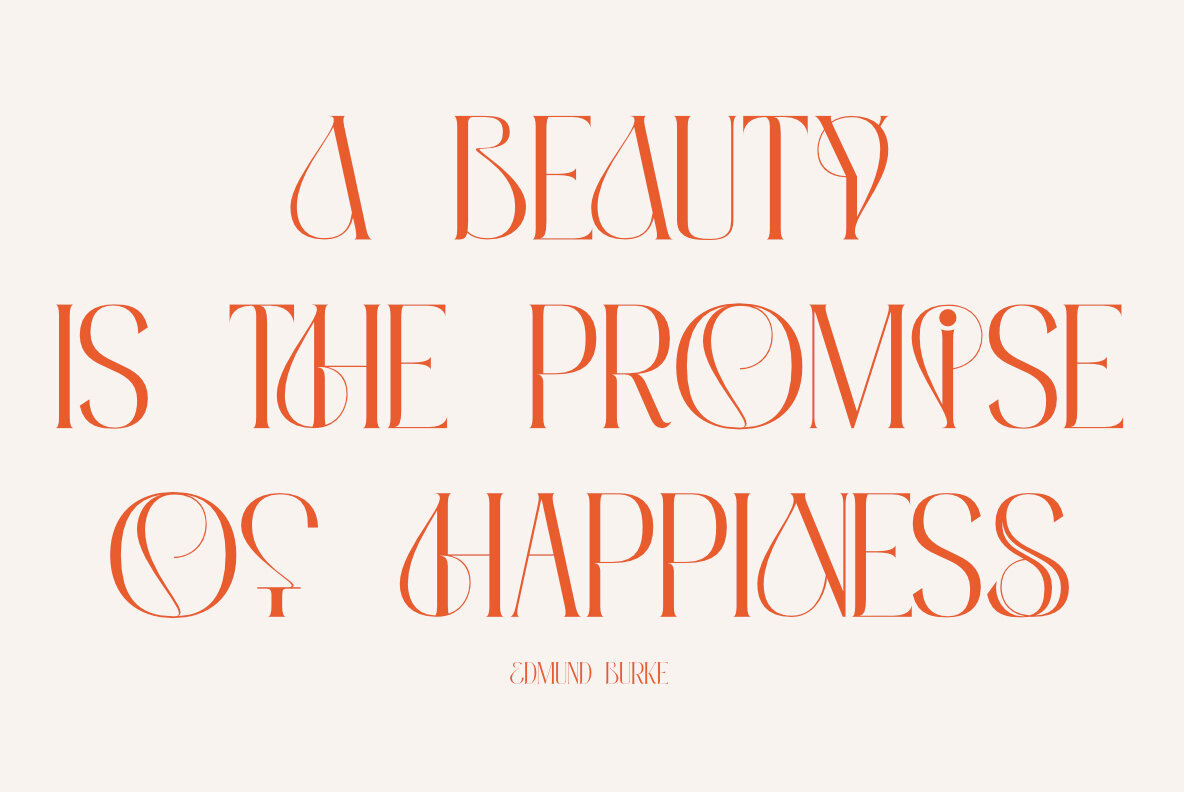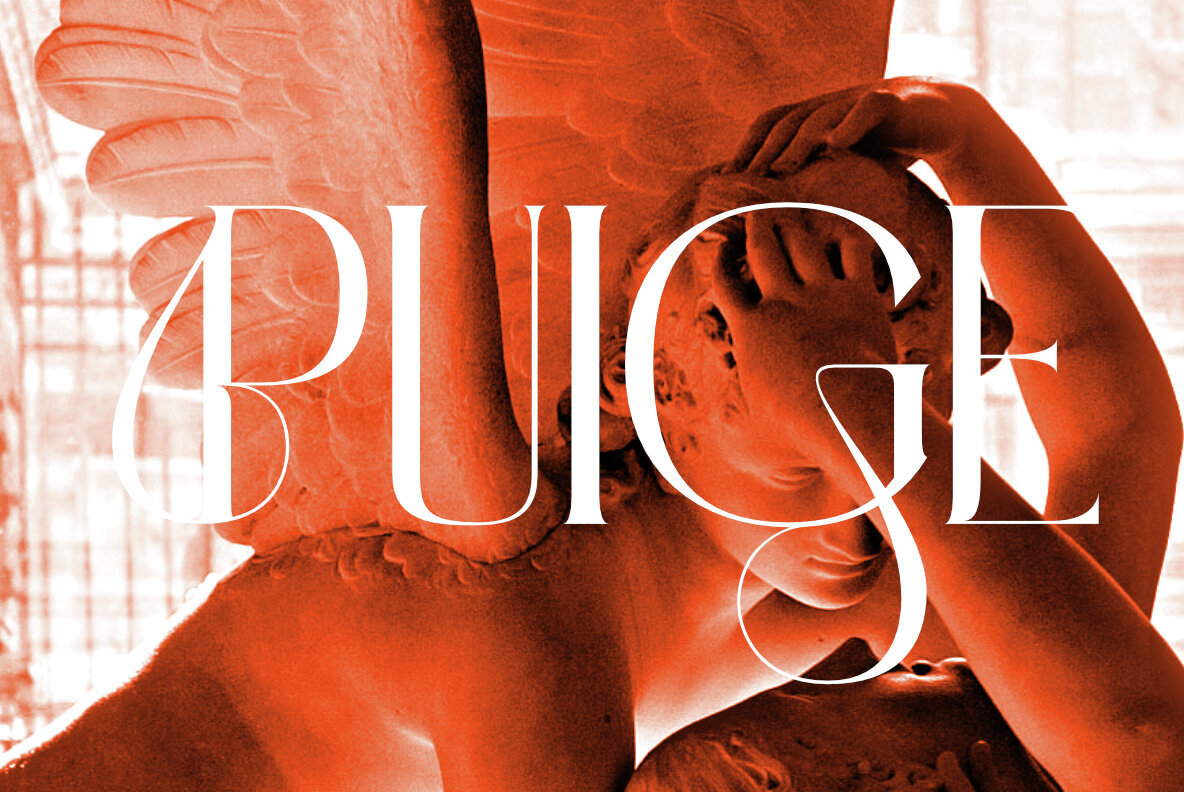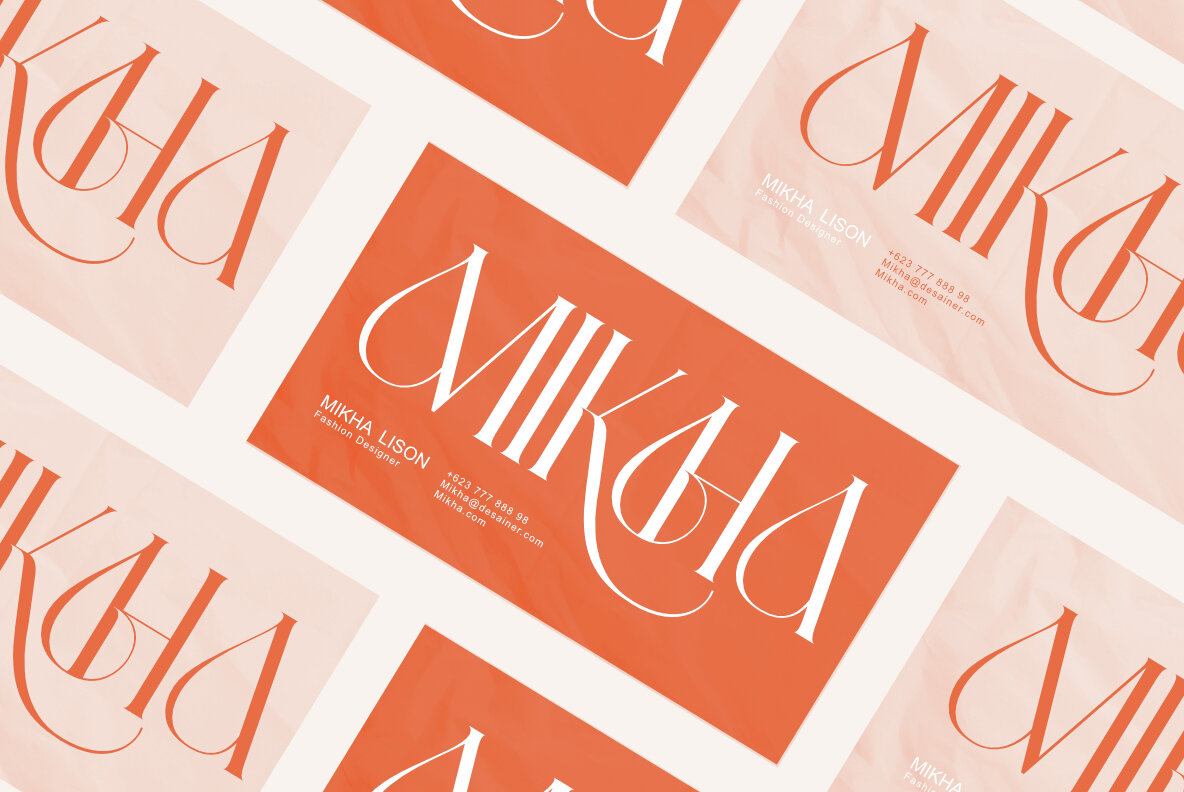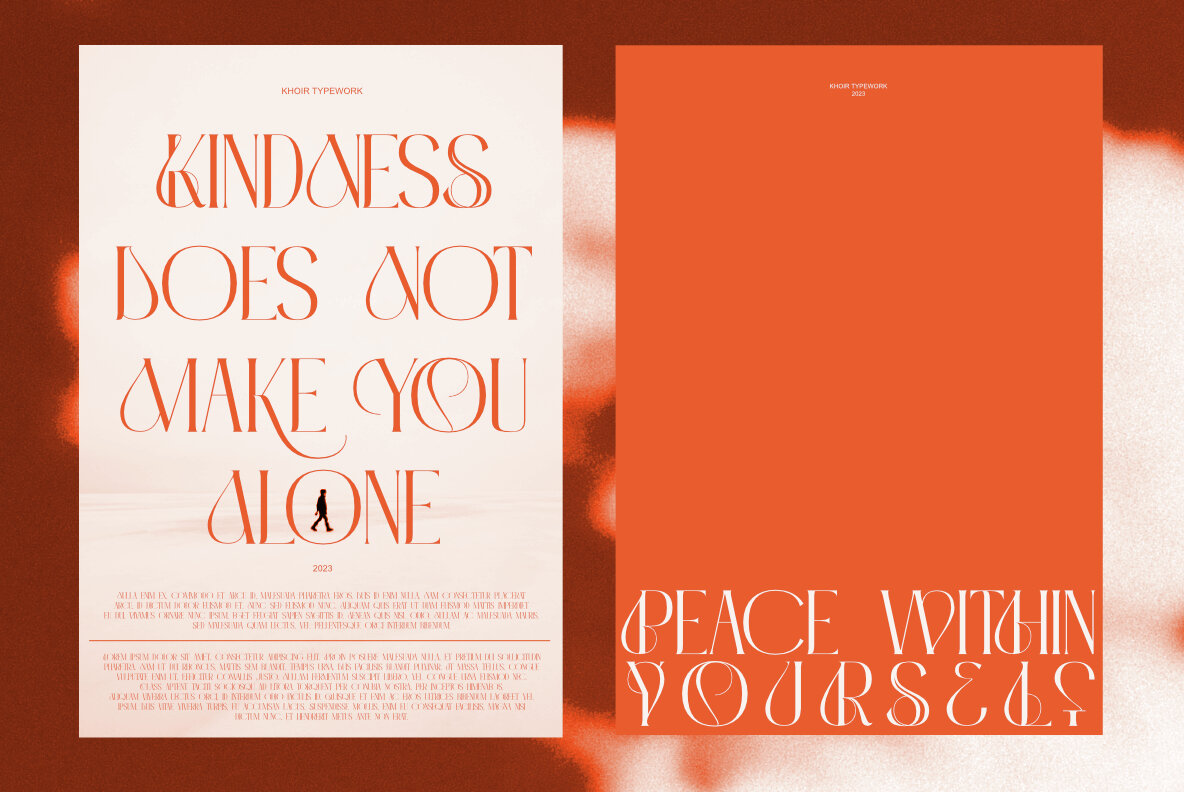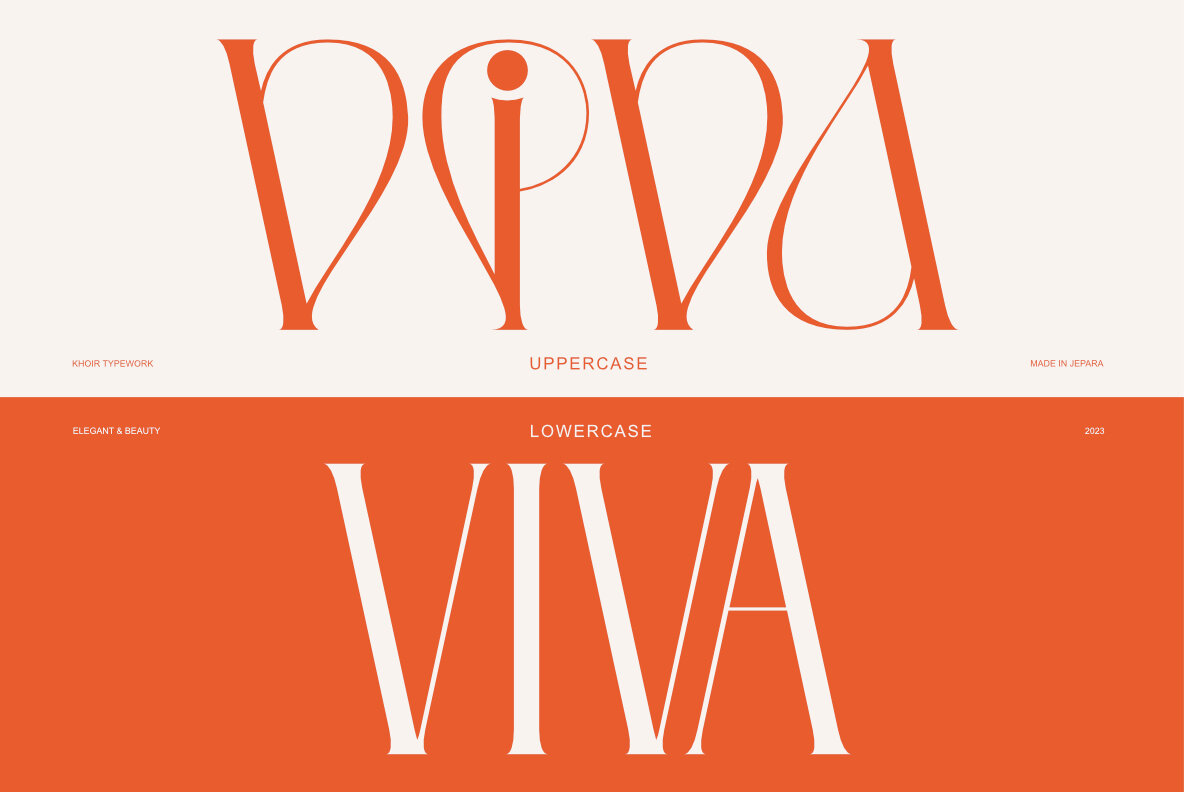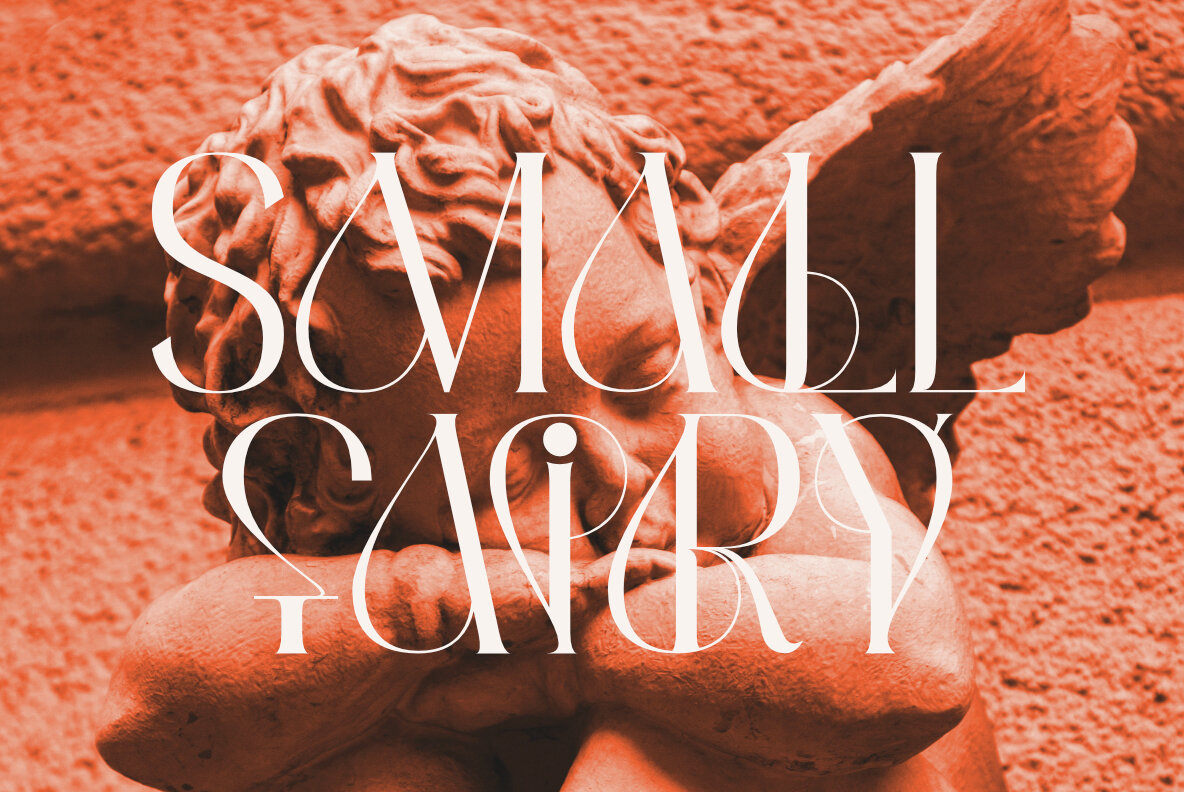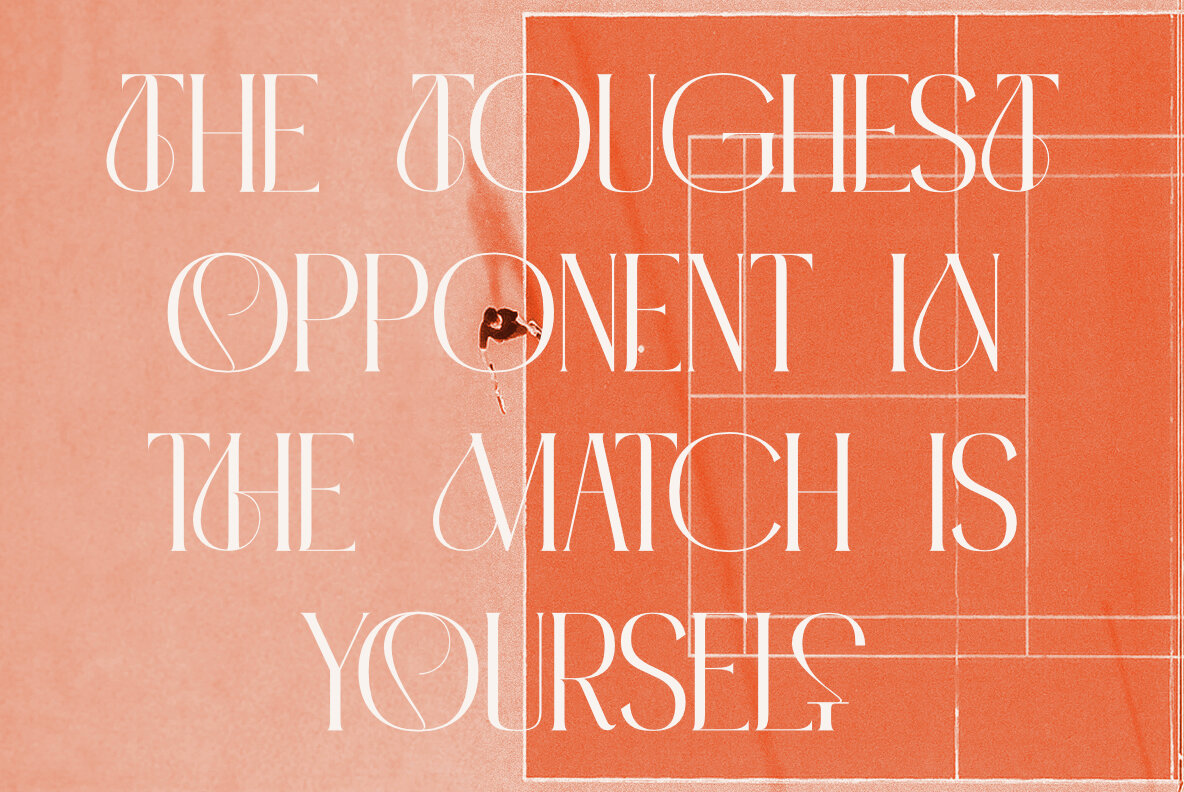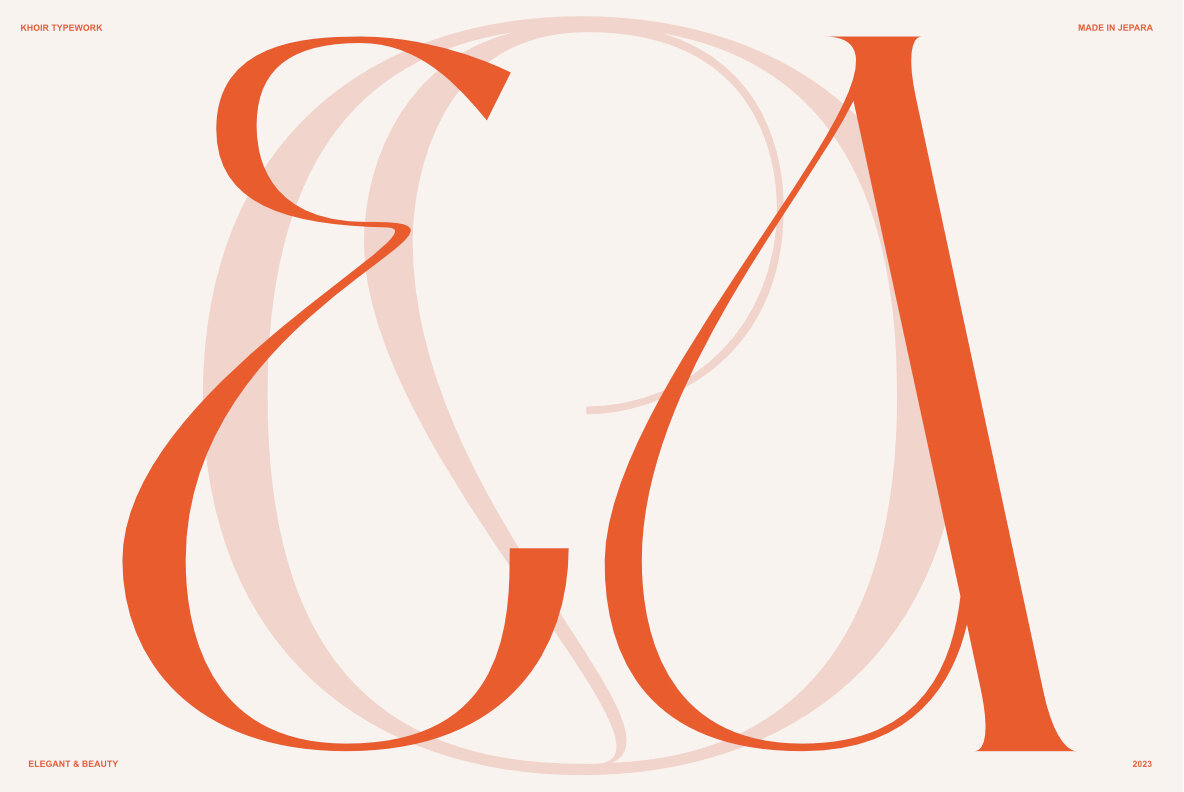
Valina Font
Valina Regular
Valina is a modern serif typeface that exudes elegance with its unique character shapes while maintaining excellent readability. This font is ideal for various design applications such as logos, quotes, posters, and cover designs.Valina: Elegant and Modern Serif Font